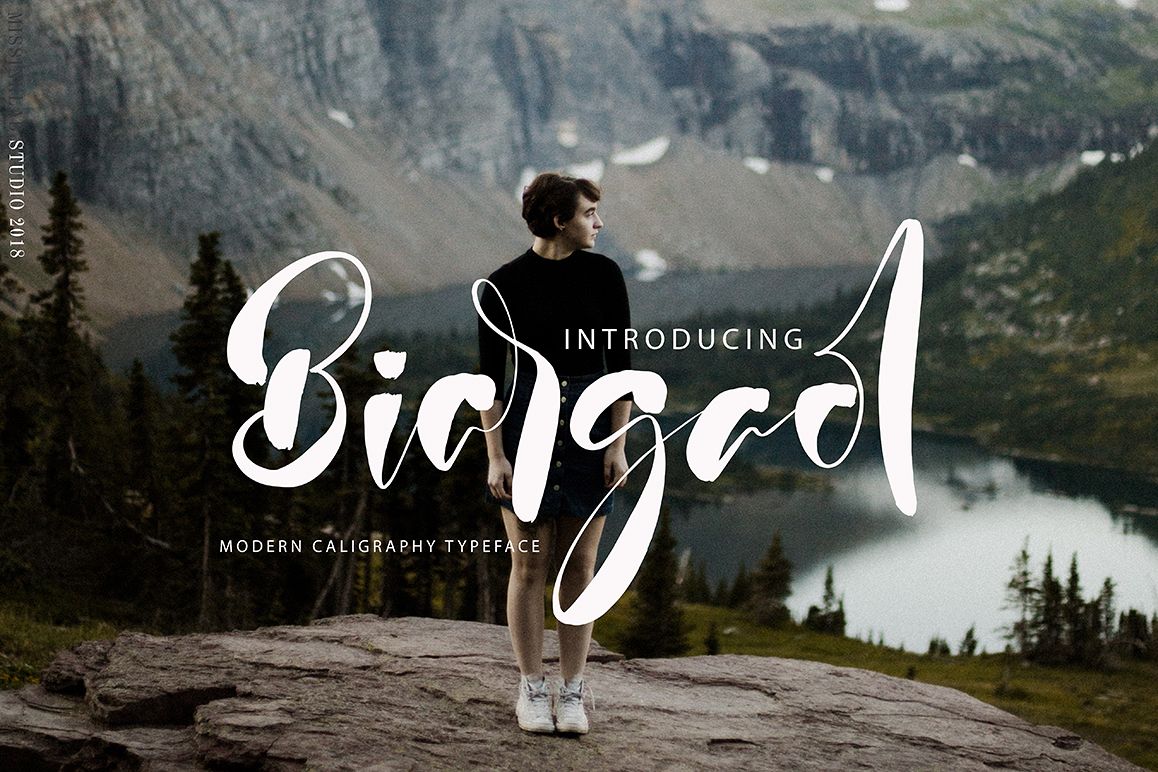
Biargaol
Biargaol modern script font with modern style, this font will perfect for many different project ex: quotes, logo, blog header, poster, banding, fashion, apparel, letter, invitation, stationery, etc...